Incendies Font
The Incendies font is inspired by Denis Villeneuve’s emotionally charged drama Incendies, a film renowned for its haunting exploration of family, identity, and the lingering scars of war. The typography mirrors the film’s intensity through its minimalism—sharp, neutral, and deliberate. Its clean, unembellished letterforms communicate clarity and restraint, allowing the emotional narrative to take precedence over visual ornamentation.
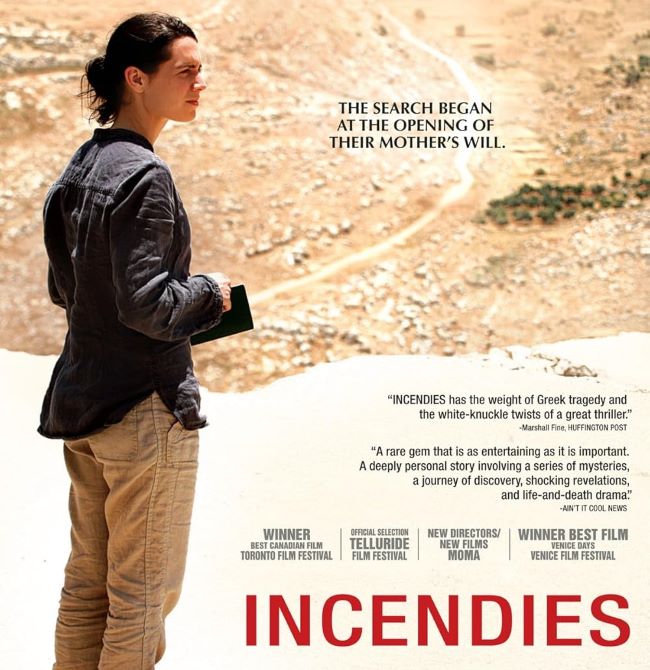
There is no officially released Incendies font, but similar results can be achieved using contemporary sans-serif typefaces like Helvetica Neue, Archivo Narrow, or Headache Normal. These fonts share the same disciplined geometry and understated tone—making them perfect for cinematic titles, editorial layouts, or any design that demands emotional weight without visual excess.
About Incendies
Incendies is a 2010 Canadian drama film directed by Denis Villeneuve, adapted from Wajdi Mouawad’s play of the same name. The film follows twin siblings as they uncover their mother’s hidden past in a war-torn Middle Eastern country. Known for its nonlinear storytelling and striking emotional depth, Incendies is celebrated as one of Villeneuve’s most powerful and thought-provoking works.